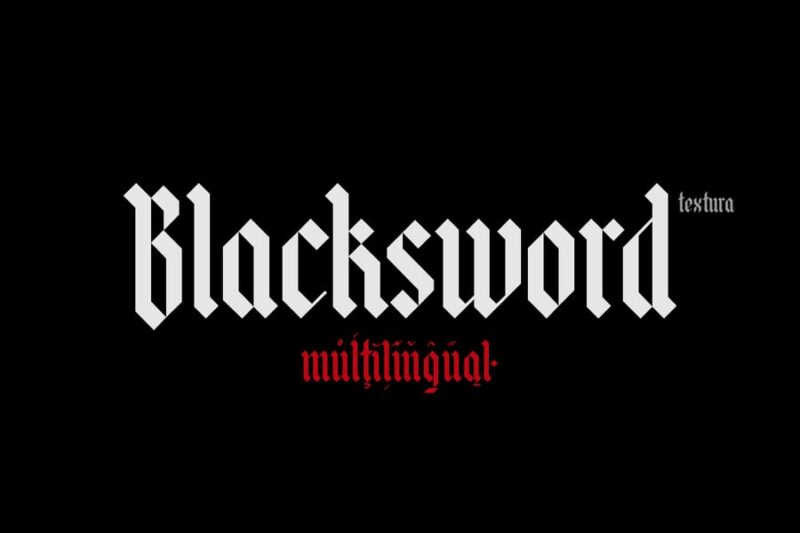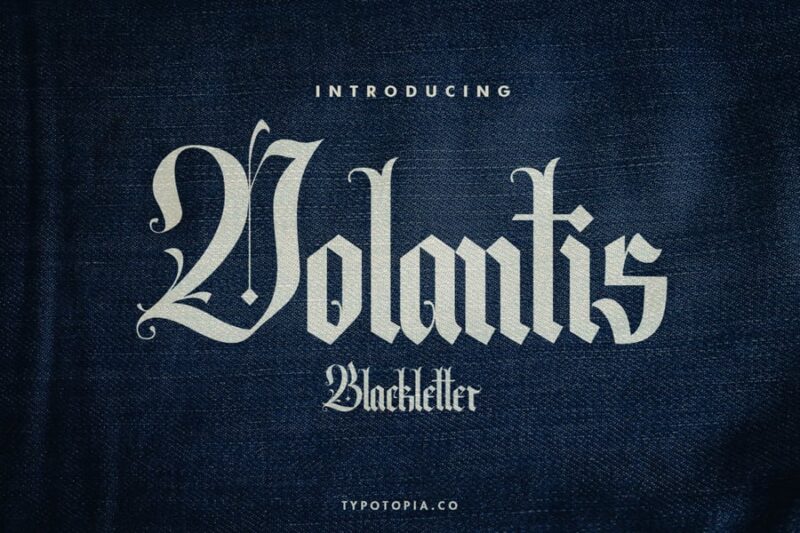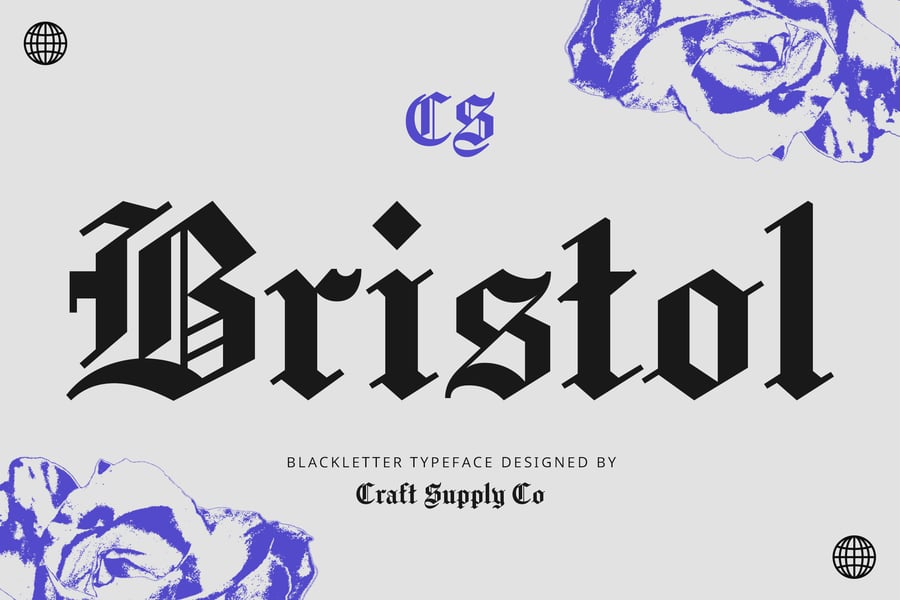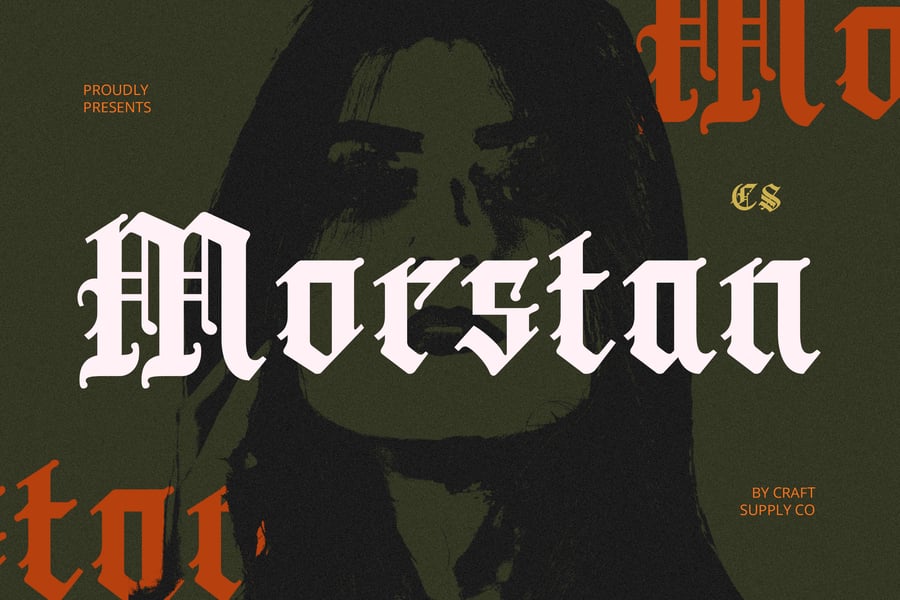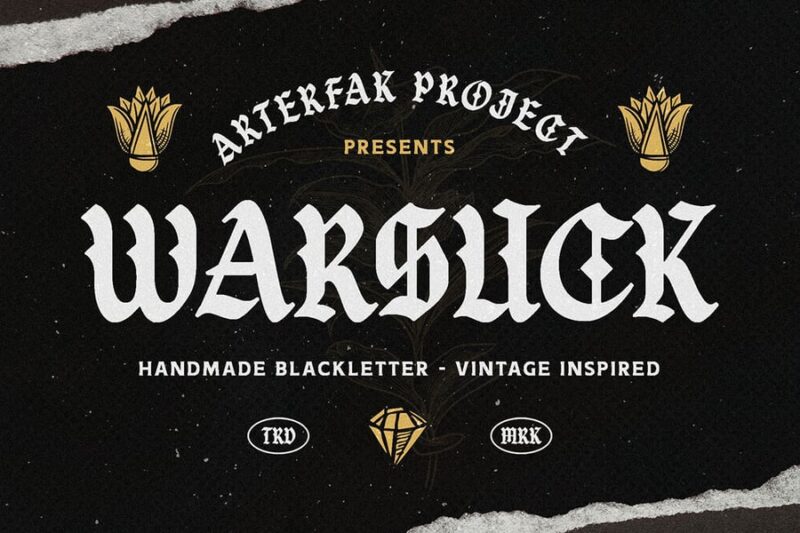
There’s a moment every graduate knows: the second that rolled-up paper hits your hands, the tassel swings to the left, and suddenly four (or more) years of hard work becomes something you can hold. But before the handshakes and the photographs, someone had to design that diploma — and the font they chose? It matters more than most people realize.
Diploma fonts are a fascinating corner of typography. They carry weight — literal and figurative. They’re asked to say “you did it” and “this is official” and “frame this and put it on your wall” all at once. And somehow, the best ones pull it off beautifully.
Whether you’re a designer creating certificates and academic documents, a school administrator updating your institution’s templates, or just a type nerd who wants to understand why diplomas look the way they do — this is for you. Let’s dig in.
The Best Diploma Fonts to Use in 2026
Here are some of the best diploma fonts available — whether you’re going for deeply traditional, elegantly modern, or somewhere beautifully in between.
The Bjorke – Handmade Fonts
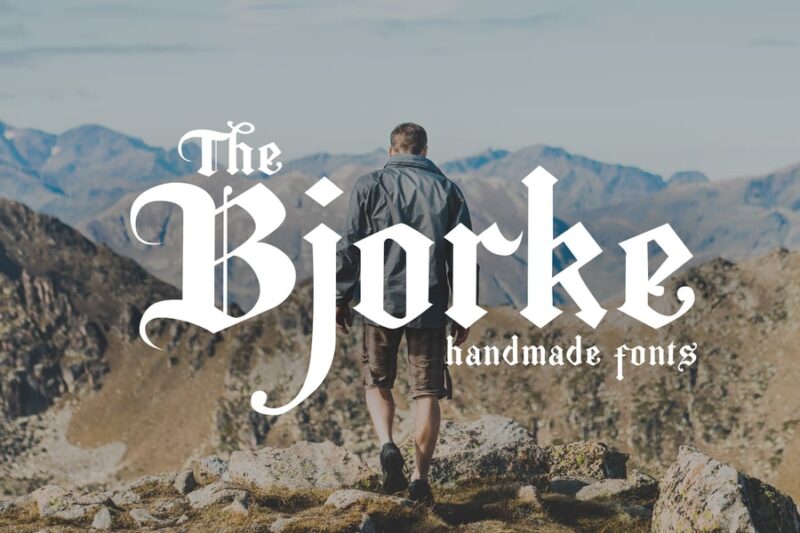
The Bjorke offers a distinctive handmade aesthetic that combines craftsmanship with contemporary appeal. While not a traditional diploma font, its artisanal quality makes it suitable for creative certificates and alternative educational credentials. This typeface works exceptionally well for design schools, art programs, and modern institutions seeking to break away from conventional academic typography.
AMR Royal Grande
AMR Royal Grande exudes luxury and grandeur, making it an excellent choice for high-end diploma designs and prestigious award certificates. This regal typeface commands attention and respect, perfect for graduation documents and formal recognition materials. Its sophisticated character set ensures that diploma fonts maintain their ceremonial importance while delivering exceptional readability.
Vasavine – Old English Font
Vasavine delivers authentic Old English charm with refined elegance suitable for formal academic documents. This traditional diploma font captures the timeless appeal of classical education while maintaining excellent legibility for modern applications. Its historical character makes it perfect for universities, colleges, and institutions that value tradition in their certification materials.
Oolivar Strenya – Gothic Blackletter Font
Oolivar Strenya showcases dramatic Gothic blackletter styling that brings medieval gravitas to contemporary design projects. This striking diploma font alternative is ideal for institutions seeking to convey heritage and academic excellence through bold typography. Its commanding presence makes it particularly effective for law schools, theological seminaries, and prestigious academic programs.
Claes – Old English Font
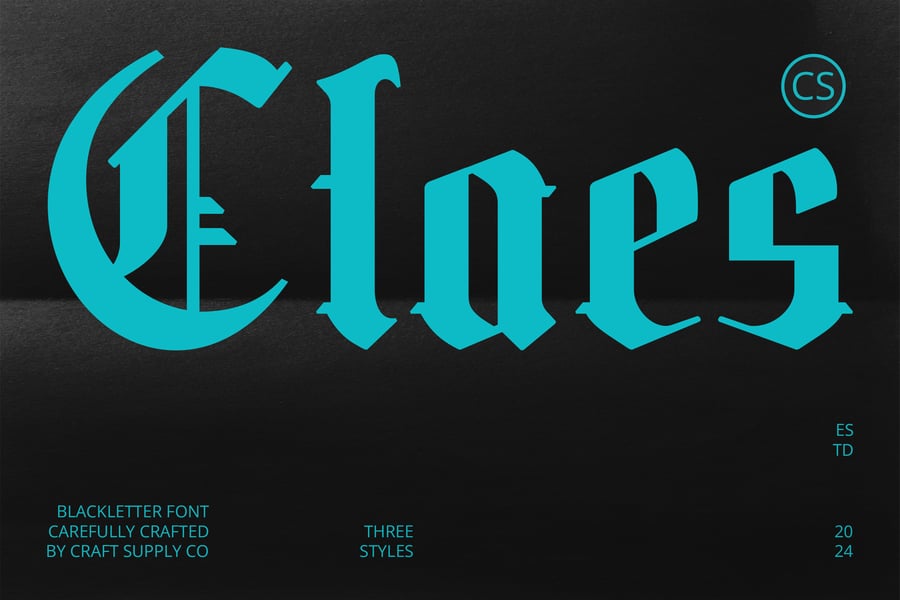
Claes offers a refined interpretation of classic Old English typography, perfectly balanced for modern diploma and certificate applications. This versatile diploma font maintains traditional academic authority while ensuring contemporary readability standards. Its elegant letterforms make it an excellent choice for graduation ceremonies, professional certifications, and formal educational documents.
Kingslayer – Modern Blackletter Font
Kingslayer presents a contemporary take on blackletter design, combining medieval inspiration with modern functionality. While more dramatic than traditional diploma fonts, it’s perfect for creative institutions and alternative academic programs seeking distinctive certificate designs. This font bridges the gap between historical academic typography and cutting-edge design aesthetics.
Dark Whisper – Fierce Blackletter Font
Dark Whisper delivers intense blackletter styling with bold character and commanding presence. Though more dramatic than conventional diploma fonts, it serves specialized educational markets like military academies or martial arts certifications. Its fierce aesthetic makes it suitable for institutions that want their credentials to convey strength and determination.
Modula – Old English Font
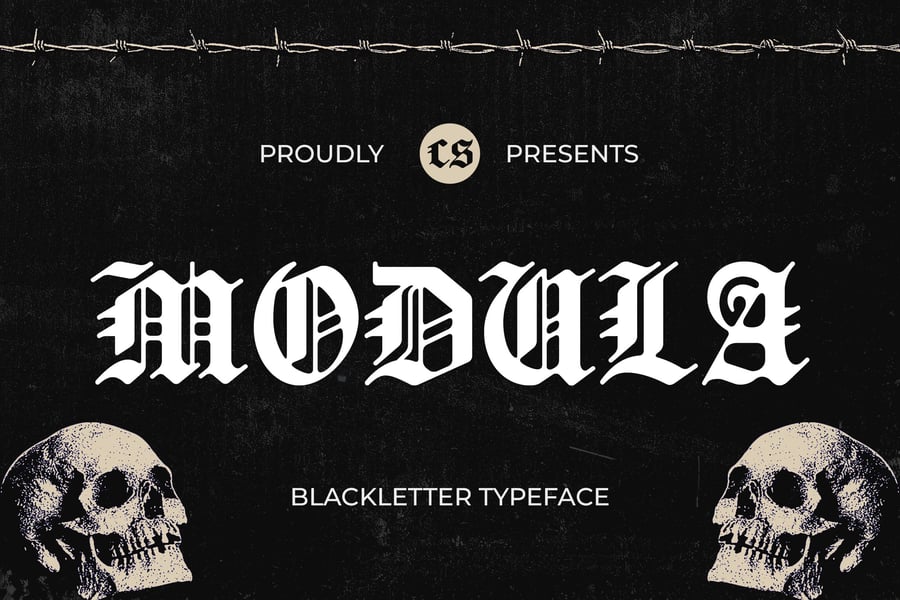
Modula combines classic Old English elegance with modular design principles for exceptional versatility. This sophisticated diploma font works beautifully across various academic applications, from undergraduate certificates to doctoral degrees. Its balanced proportions and traditional character set make it a reliable choice for institutions seeking timeless academic typography.
Saunter – Old English Font
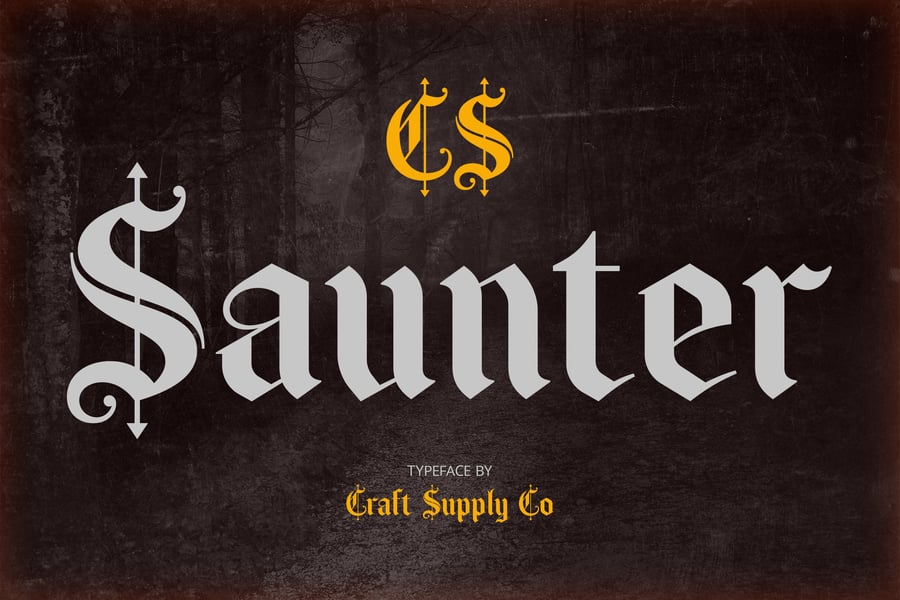
That’s a remarkable amount of pressure to put on letterforms. And the best diploma fonts carry it without breaking a sweat.
So whether you’re designing credentials for a major university or a boutique professional certification, give the typography the attention it deserves. Because somewhere out there, someone is going to frame what you create — and they’re going to look at it for the rest of their life.
Choose your fonts accordingly.